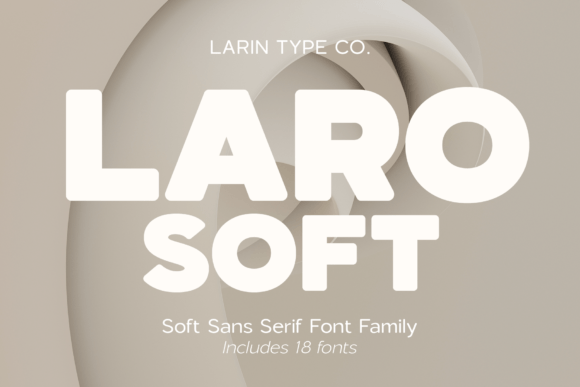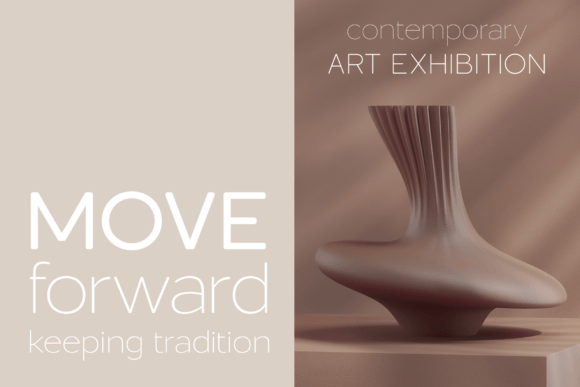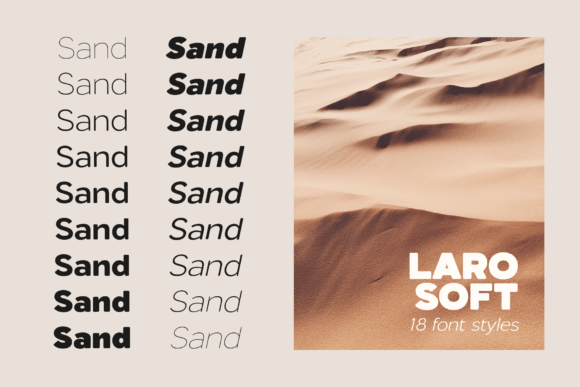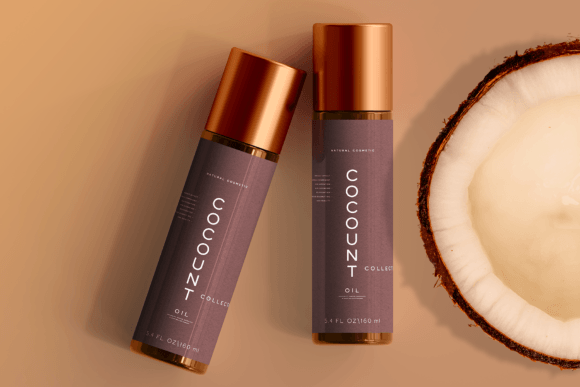
Laro Soft Font
About the Laro Soft Font
Discover the charm of Laro Soft Font. This font is a perfect blend of modern aesthetics and classic appeal. Laro Soft is a modern sans-serif font that includes nine weights from thin to black and nine weights in Italic style.
This multi-purpose font captures a huge range for the design and creation of your project. Laro will perfectly cope with a variety of tasks and will always look stylish and modern. With it, you can create logos, labels, advertising, packaging, branding, book covers and magazines, cosmetics, banners, posters, headings, descriptions, and much more.
Laro Soft’s gentle curves and varied weights make it ideal for headlines, branding projects needing a touch of approachability, and packaging designs where a modern yet friendly aesthetic is desired. It works exceptionally well in short-form text, such as logos, short taglines, and impactful posters. However, its less-pronounced x-height makes it less suitable for lengthy body text or UI elements requiring high readability.
Its soft, approachable personality pairs well with complementary fonts like a classic serif like Garamond for a touch of elegance, or a geometric sans-serif like Futura for a more modern, balanced feel. For a more playful effect, consider pairing it with a handwritten script font, but use it sparingly as a secondary font.
The overall impression is one of friendly modernity; Laro Soft projects a sense of approachability and sophistication, making it perfect for brands aiming for a balance between stylishness and approachability.
Laro Soft Font Usage Examples
Laro Soft Font Example